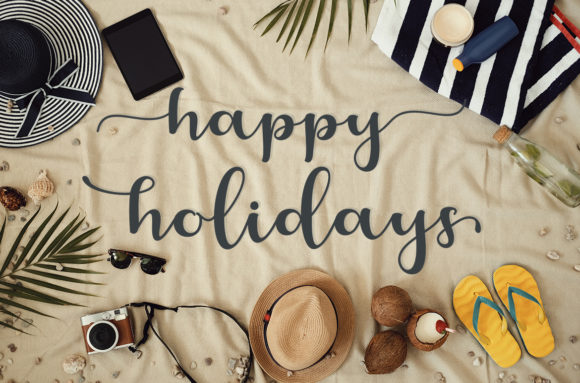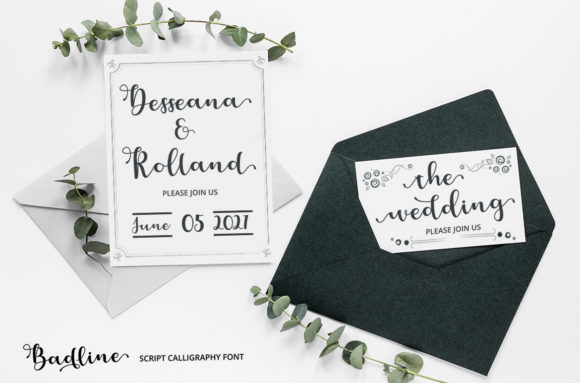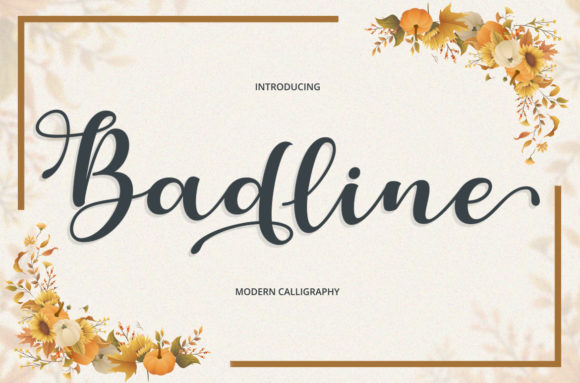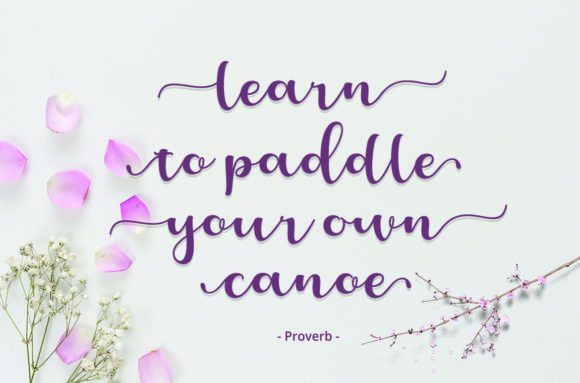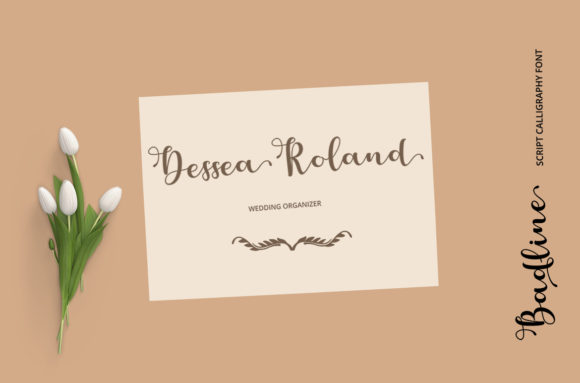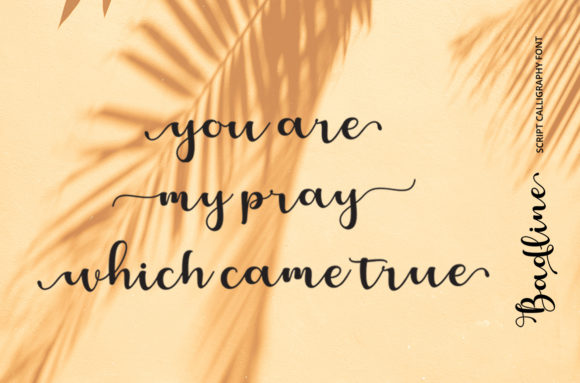
Introducing Badline Font: Elevate Your Designs with Elegant Script
In the world of typography, a well-crafted font can make all the difference in elevating your designs from ordinary to extraordinary. If you’re a designer or crafter looking for a script font that exudes elegance and sophistication, look no further than Badline Font. Inspired by timeless classic calligraphy, Badline is a contemporary script font that boasts impeccable form and a balanced, varied aesthetic.
The Inspiration Behind Badline
Badline Font draws inspiration from the classic calligraphy of the past, with a modern twist. The font’s creator aimed to strike a perfect balance between traditional elegance and modern flair, resulting in a font that is neither too thin nor too thick. This balance makes Badline incredibly versatile, suitable for a wide range of design projects, from wedding invitations and branding materials to packaging and digital media.
Key Features of Badline Font
• Balanced and Varied: Badline’s strokes are carefully crafted to provide a harmonious balance of thick and thin lines, creating a visually appealing rhythm.
• PUA Encoded: Badline is PUA (Private Use Area) encoded, which means you can easily access all the glyphs and swashes without needing any special software or technical expertise.
• Elegant and Contemporary: With its classic inspiration and modern execution, Badline brings an air of sophistication and elegance to any project.
• Impeccable Form: The font’s design emphasizes clarity and beauty, making it perfect for designs where legibility and style are paramount.
Why Choose Badline Font?
For designers and crafters, finding the right font can be a daunting task. Badline Font stands out for several reasons:
• Versatility: Whether you’re working on a luxury brand project, a wedding invitation, or a personal craft, Badline’s adaptability shines through.
• Legibility: Despite its elegant and cursive nature, Badline remains highly legible, even at smaller sizes.
• Unique Swashes: The inclusion of swashes adds a creative flair to your designs, allowing for truly unique and personalized typography.
• Easy to Use: Thanks to its PUA encoding, you can easily access and use the font’s extensive features, even if you’re not a typography expert.
Using Badline in Your Projects
Badline Font can elevate a variety of design projects. Here are a few ideas to get you started:
• Wedding and Event Stationery: Add a touch of elegance to invitations, save-the-dates, and thank-you cards.
• Branding and Logo Design: Use Badline to create a luxurious and memorable brand identity.
• Packaging Design: Stand out on store shelves with sophisticated packaging that features Badline.
• Digital Media: Incorporate Badline into your website, social media graphics, or email newsletters for a refined look.
Badline Font is a stunning script font that brings a perfect blend of classic elegance and modern sophistication to your designs. Its balanced and varied strokes, coupled with PUA encoding for easy access to glyphs and swashes, make it an invaluable tool for designers and crafters. Whether you’re aiming to create beautiful stationery, craft a luxurious brand image, or simply add a touch of elegance to your digital media, Badline is sure to exceed your expectations. Discover the beauty and versatility of Badline Font and elevate your designs to new heights.